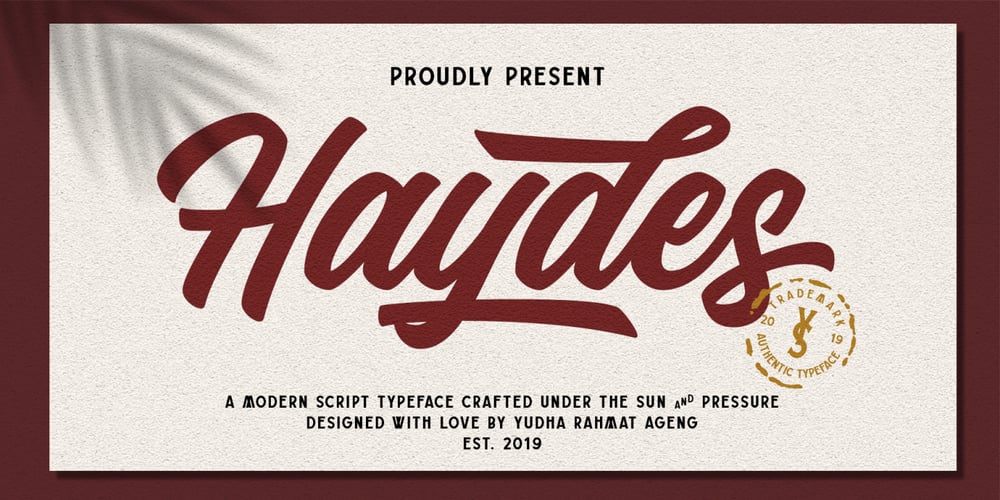
Haydes
Haydes font
Haydes Font Family was designed by Yudha Rahmat Ageng and published by YdhraStudio. Haydes contains 2 styles and family package options. Haydes is a hand brush typeface with authentic clean brush imperfections. Haydes includes many different alternates for each lowercase and uppercase letter. It’s extremely fun to use as each word can be transformed to your liking. We also include a bonus swash weight to make your design look more awesome.Haydes also has a standard Multilingual Support.Haydes is great for Branding Design, Logo Design, Digital Lettering Arts, Poster, T-Shirt/Apparel, Magazine, Quotes, Signs, Instagram Designs, Advertising Design, and any other type design needs.You can access all those alternate characters by using a program that supports OpenType features such as Adobe Illustrator CS, Adobe Indesign & CorelDraw X6-X7.Guides to access all alternates glyphs : http://adobe.ly/1m1fn4YMix and match the alternate characters to add an attractive message to your design.Need help?Please, Feel free to contact me by e-mail yyudhara@gmail.com for any question about my font, Extended License document and more.Good Luck and Have fun !YdhraStudio